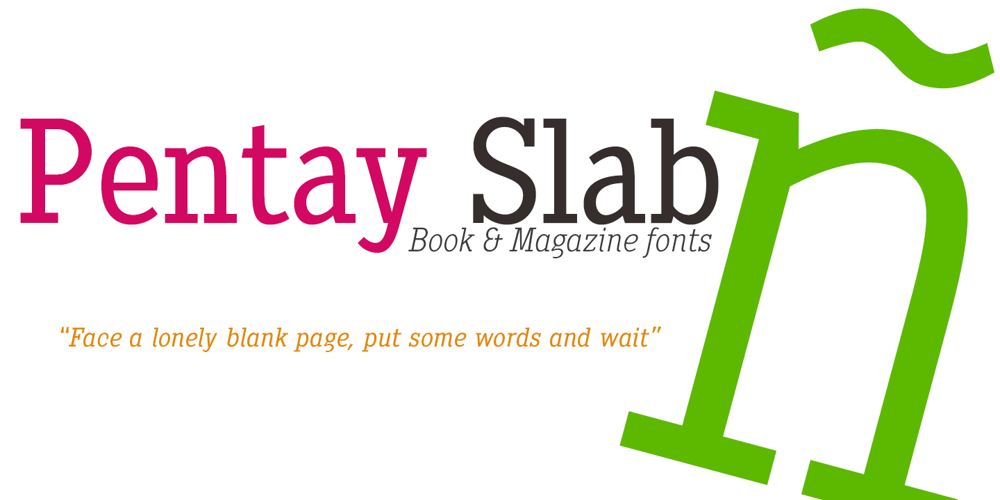
Pentay Slab Font Family was designed by Fernando Haro and published by deFharo. Pentay Slab contains 10 styles and family package options. Pentay is a Slab Serif typeface family with 10 styles designed especially for editorial design and publications in general. The proportions of the font as well as the metrics and the kerning have been carefully calculated to obtain maximum readability. The fonts also have a complete set of lowercase alternatives and advanced OpenType features. Pentay fonts are also available in Sans Serif versions that complete a typographic system for editorial and corporate design.